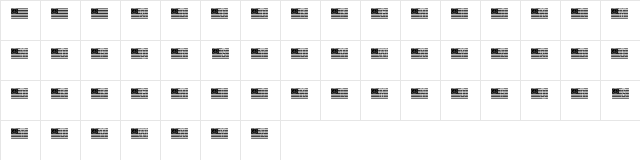
KR A Time For Peace Regular
Design Context for KR A Time For Peace
KR A Time For Peace is a composed and adaptable typeface that performs quietly and consistently across a wide range of design contexts.
Pro Tip: Use KR A Time For Peace in both headline and body roles to test its range before committing to a single application.